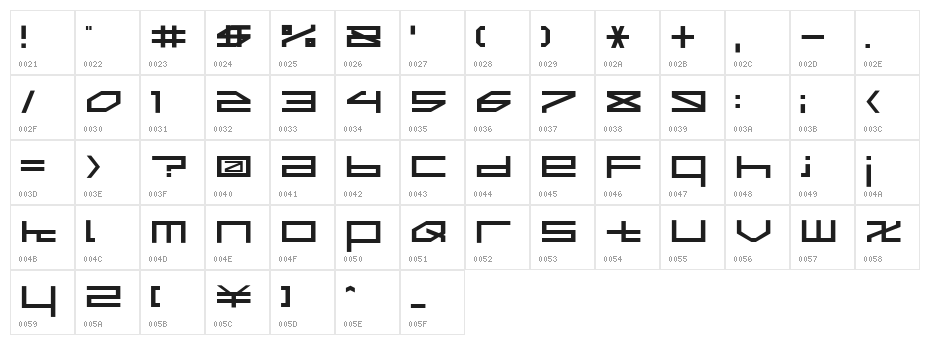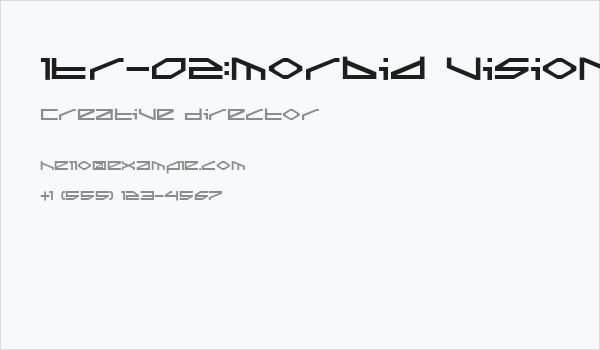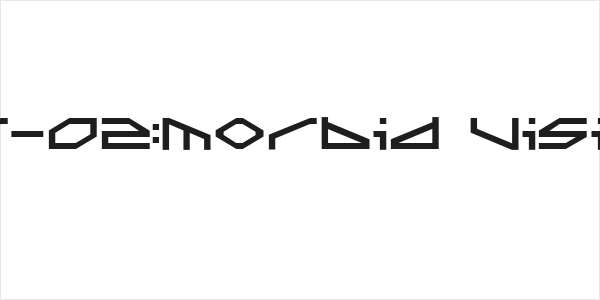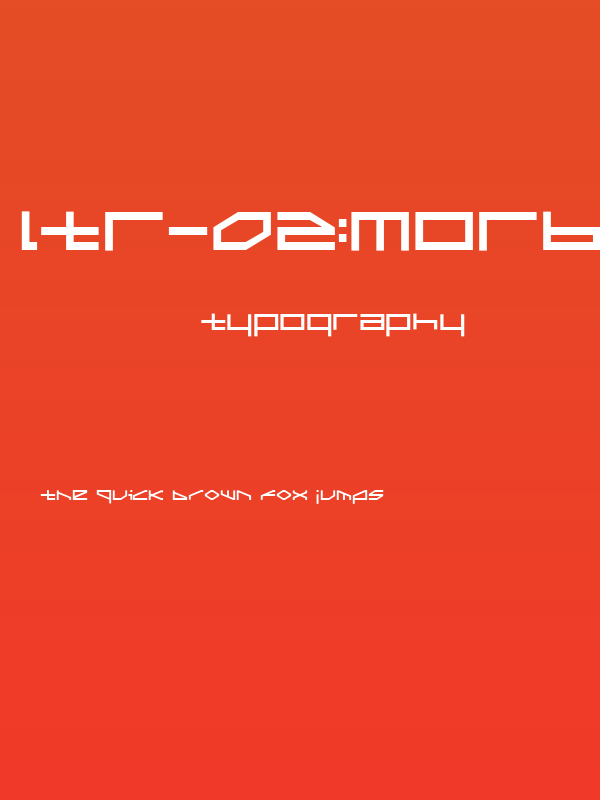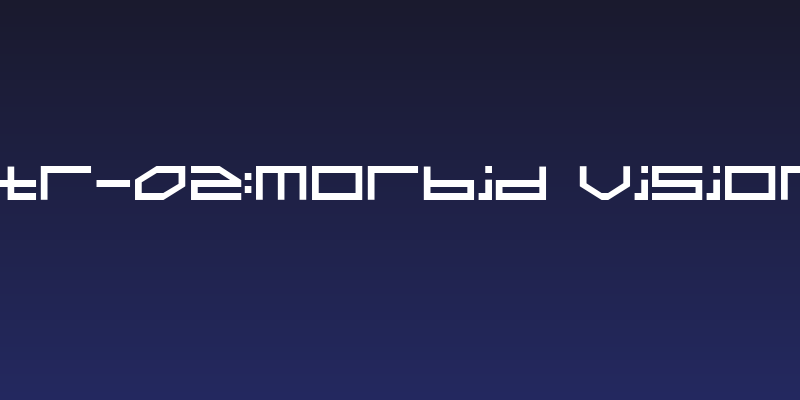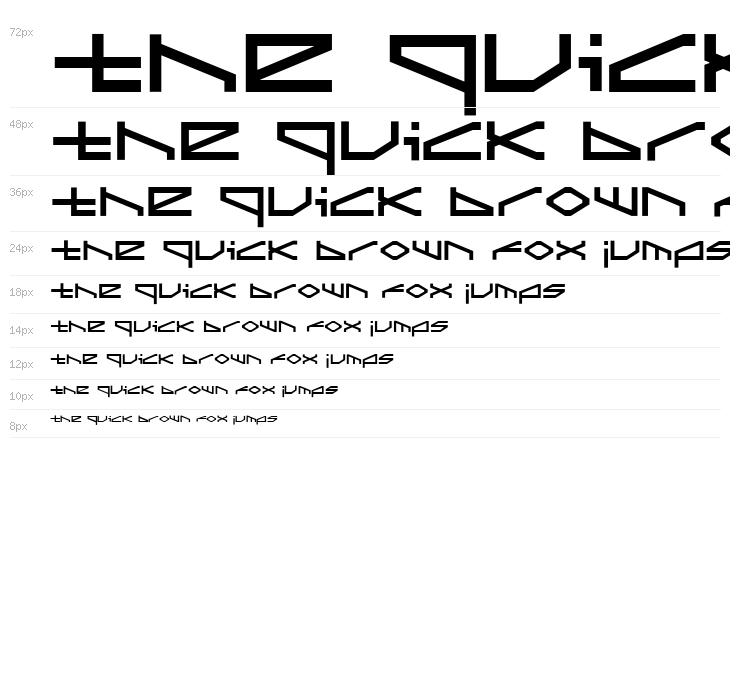
ltr-02:morbid vision Font
ltr-02:morbid vision Description
This font features a highly geometric and angular design, characterized by sharp edges and a futuristic aesthetic. The letters are constructed with straight lines and right angles, giving it a digital or tech-inspired look. The uppercase and lowercase letters maintain a consistent style, with unique variations that make each character distinct yet cohesive. The numerals and special characters follow the same design principles, ensuring uniformity across all glyphs. This font's bold and striking appearance makes it ideal for projects that require a modern and edgy feel.
| Proposed Projects | Ideal for technology branding, video game titles, sci-fi movie posters, and digital media projects. |